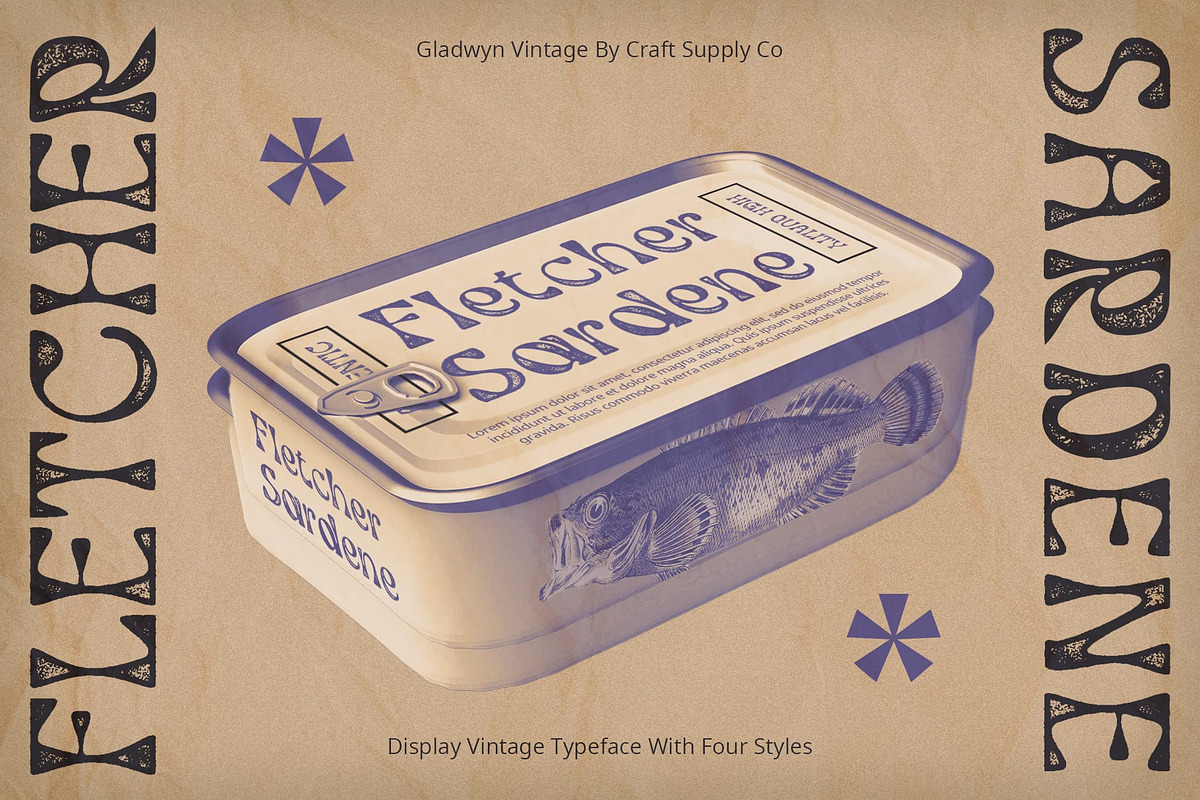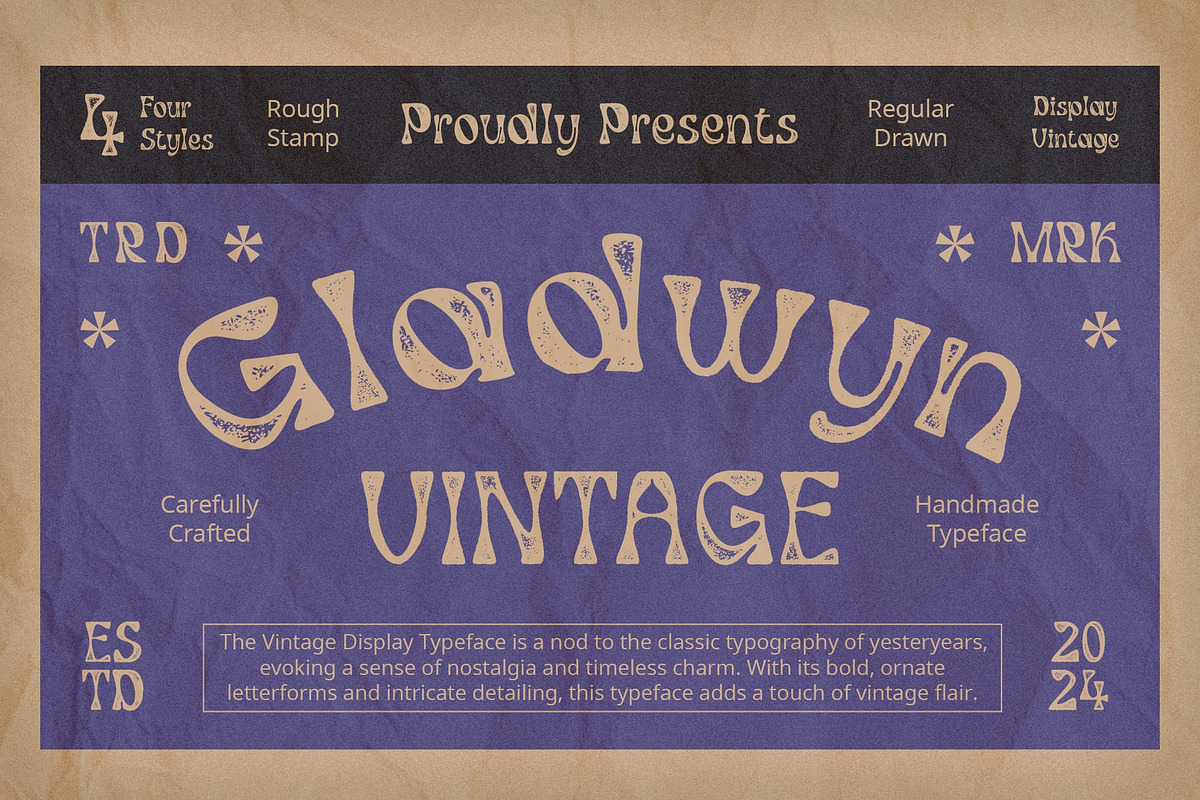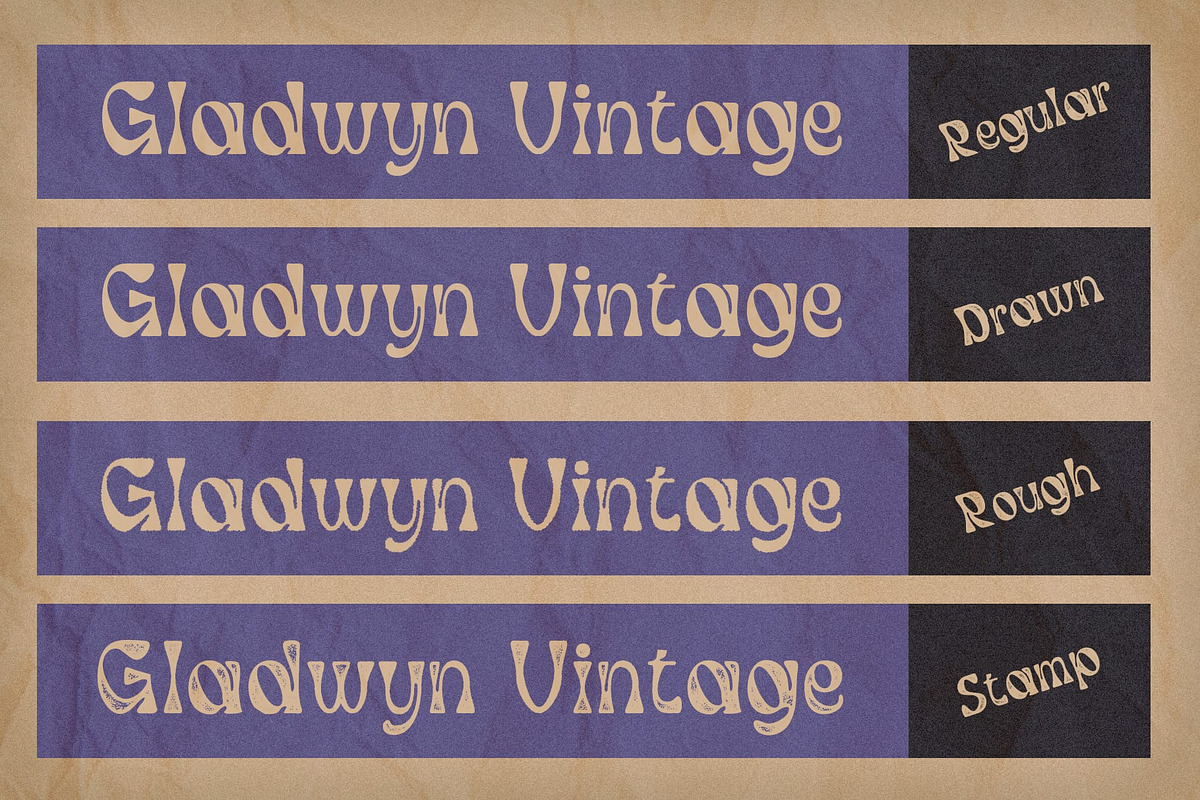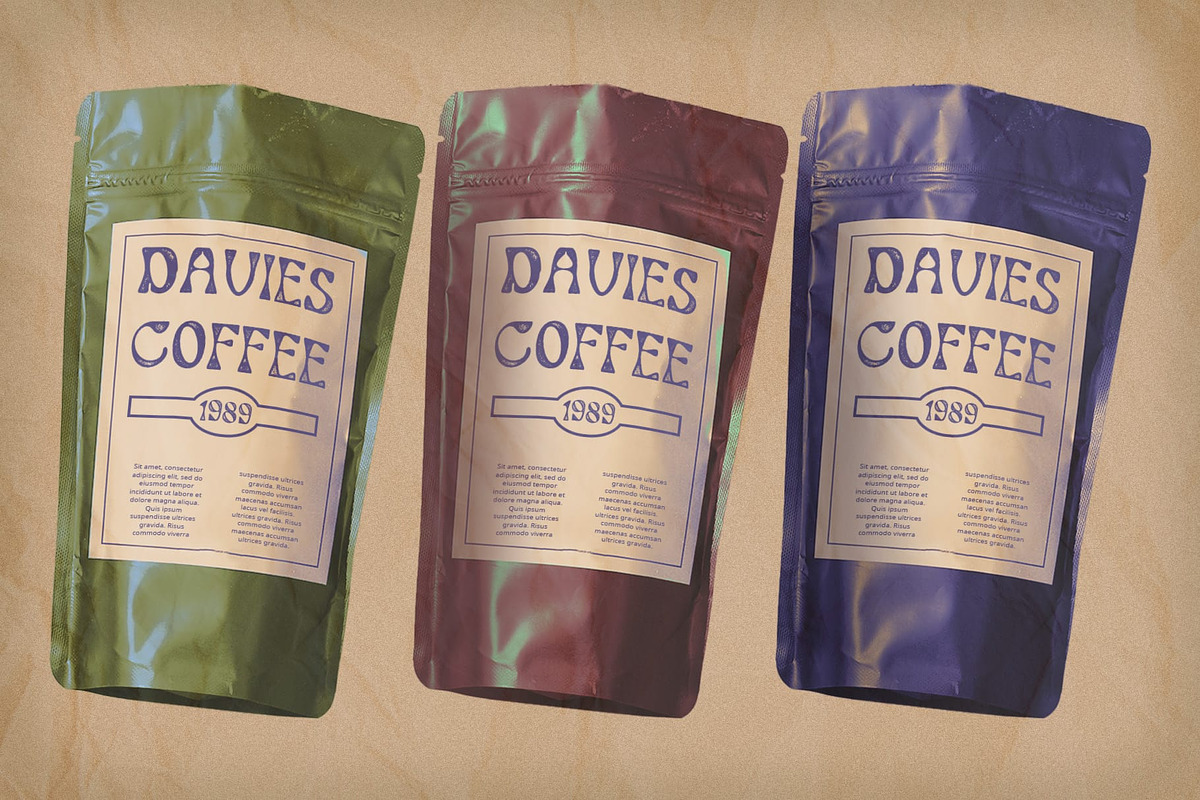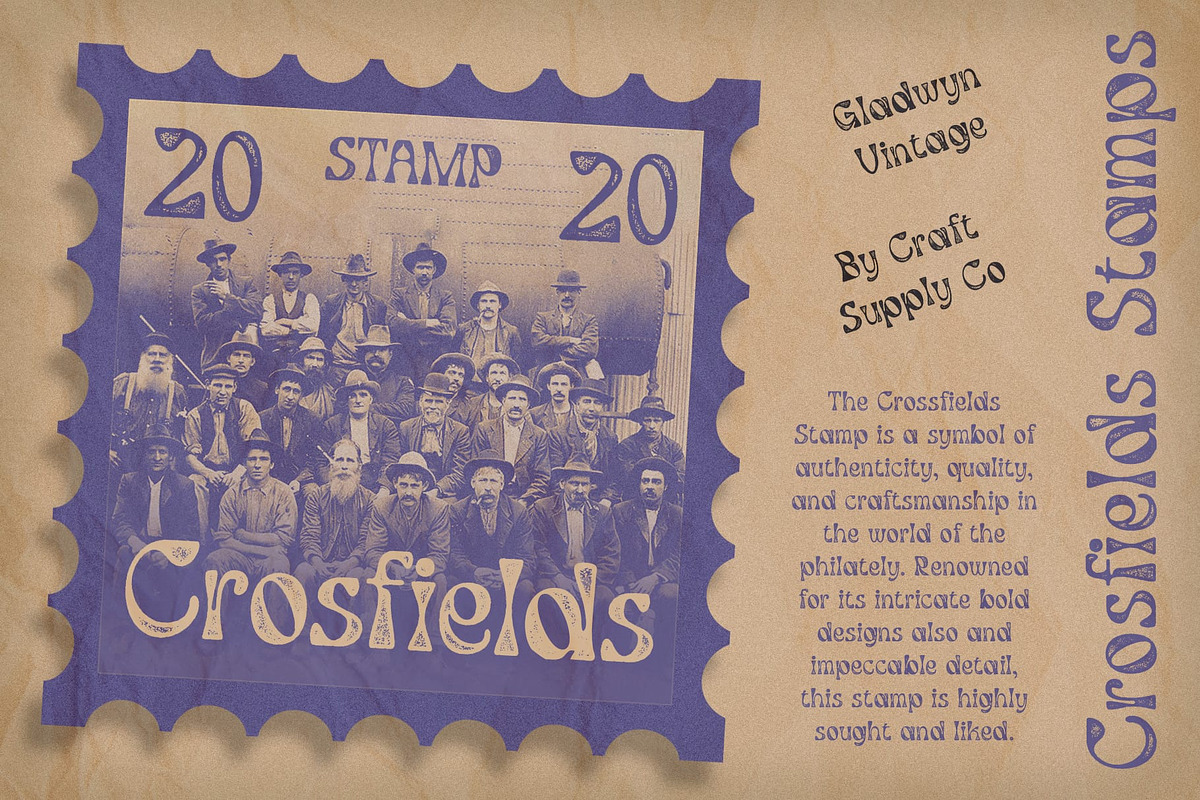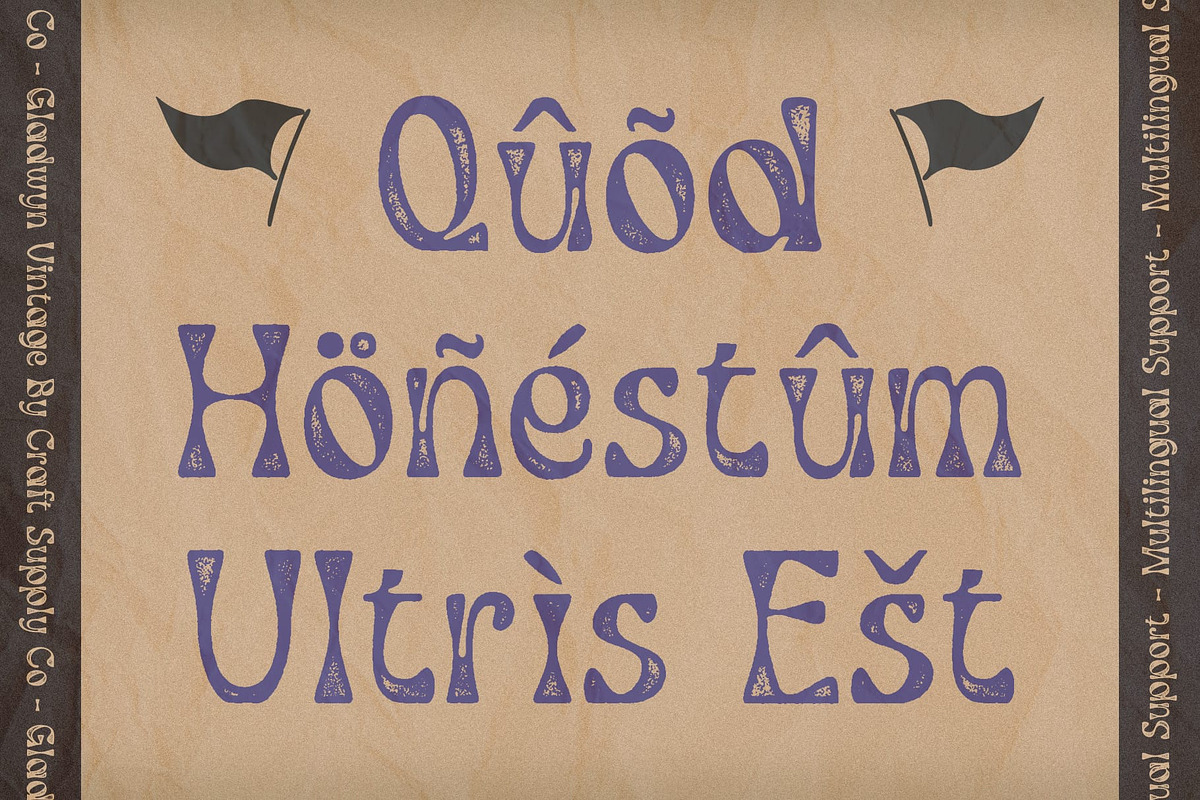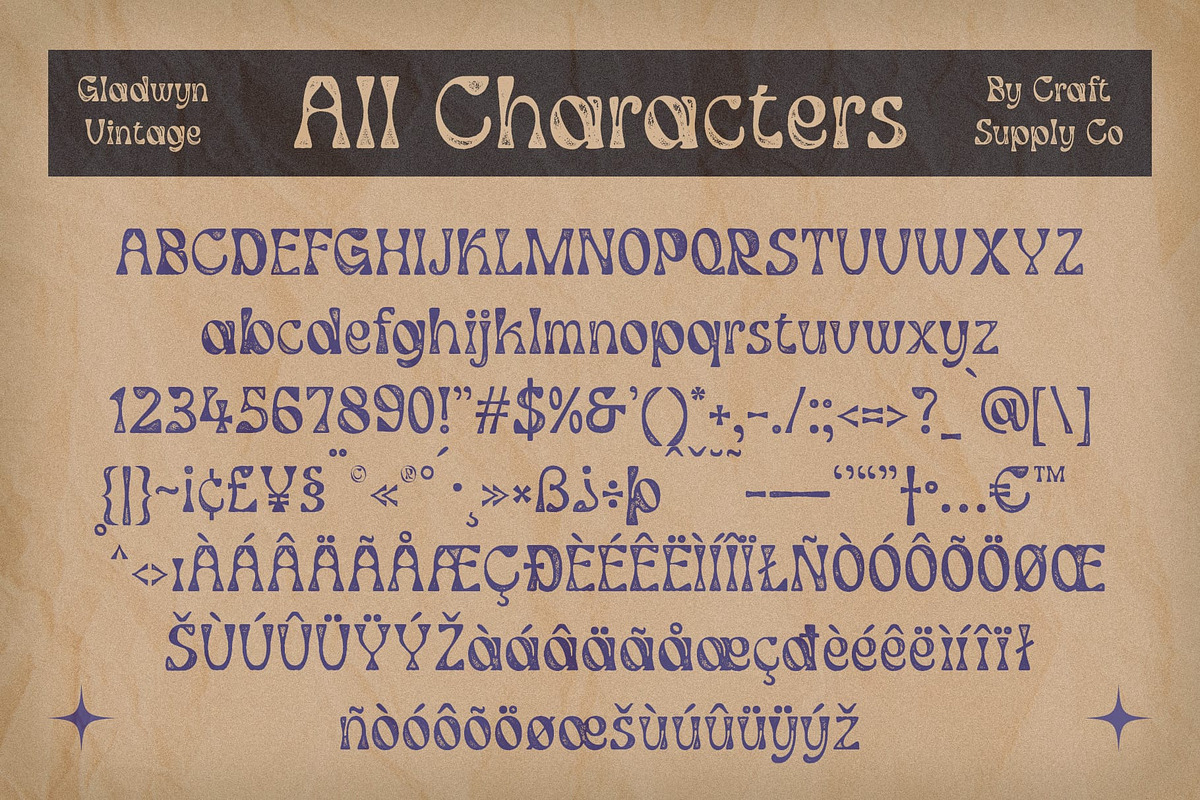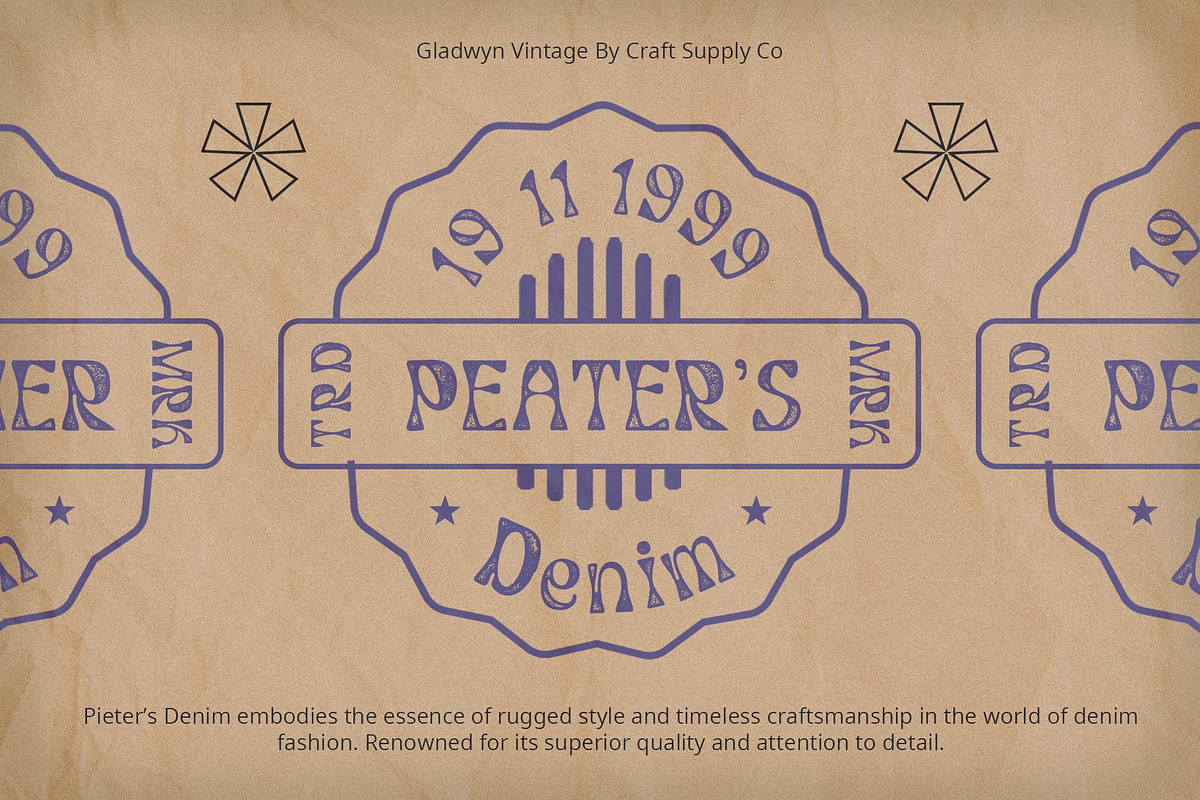
Gladwyn Vintage
Gladwyn Vintage: Unleashing Funky Vintage Vibes
Playfully Funky Design Gladwyn Vintage exudes a playful and funky aesthetic, characterized by its unique drawn rough stamp effect. Each letter captures the essence of retro charm with a modern twist.
Distinctive Drawn Rough Stamp Effect The font features a distinctive drawn rough stamp effect, adding a touch of authenticity and vintage appeal to your display designs. Each character carries an artistic flair that sets it apart.
Vintage Nuances in Every Letter This font is infused with vintage nuances, evident in its rugged edges and imperfect lines. These subtle imperfections contribute to its nostalgic charm and appeal.
Perfect for Retro-Inspired Designs Tailored for retro-inspired projects, This font is the perfect choice for branding, posters, and packaging that aim to evoke a sense of nostalgia and whimsy.
A Retro Delight This font offers a delightful blend of funkiness and vintage charm, making it an ideal choice for designers seeking to infuse their projects with retro vibes. With its drawn rough stamp effect and playful design, it adds personality and character to any design endeavor.
- Gladwyn Regular
- Gladwyn Drawn
- Gladwyn Rough
- Gladwyn Stamp